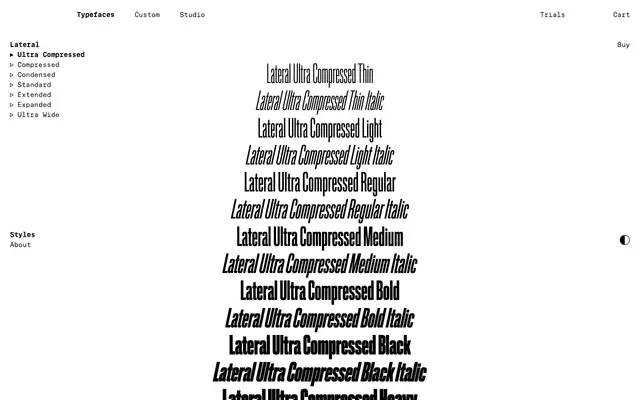
Lateral Ultra Compressed
Lateral Ultra Compressed specimen from Schick Toikka
The narrowest cut of Lateral: an ultra-compressed neo-grotesque with brutalist straight-sided rounds, in seven weights with italics, sized for display.
Lateral Ultra Compressed is the narrowest width in the seven-width Lateral system. The flat segments at curve extremes are at their most pronounced, producing emphatically straight-sided rounds and brutalist verticals; the foundry note that the family's widest width takes more than five times the space of this narrowest one. Seven weights from Thin to Black with matching italics suit posters, mastheads and other display work where vertical economy is the point.
The narrowest width in the seven-width Lateral system; flat curve segments yield emphatically straight-sided rounds and brutalist verticals.